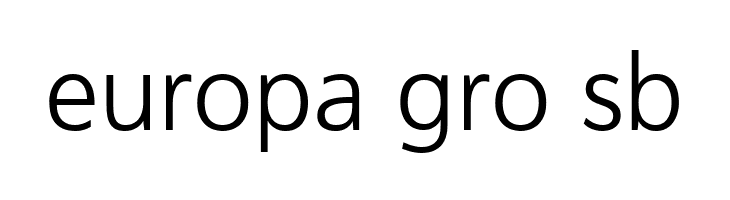
A modern sans-serif font with clean lines and uniform spacing.
A modern, sans-serif typeface with clean lines and balanced proportions.
A modern, bold sans-serif font with excellent readability and a friendly appearance.